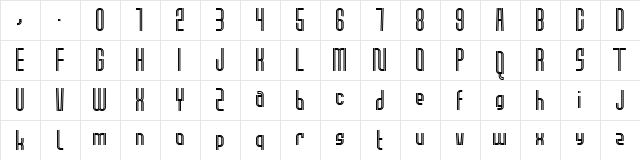
Complete BOB NEVER DIES! Regular glyph index. Displaying only characters natively supported by BOB NEVER DIES! Regular font.
BOB NEVER DIES! is a composed and adaptable typeface that performs quietly and consistently across a wide range of design contexts.